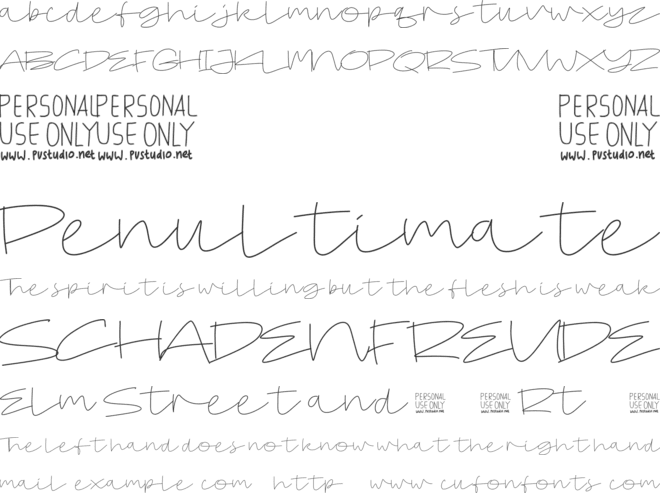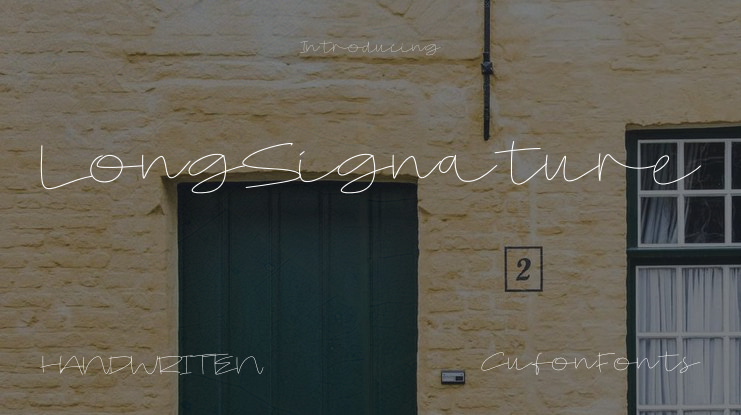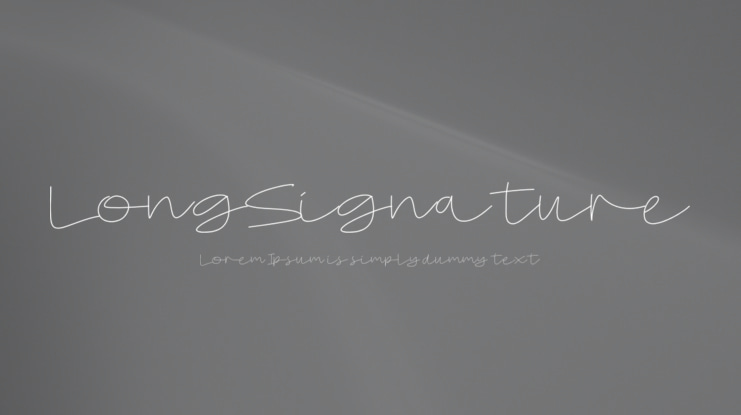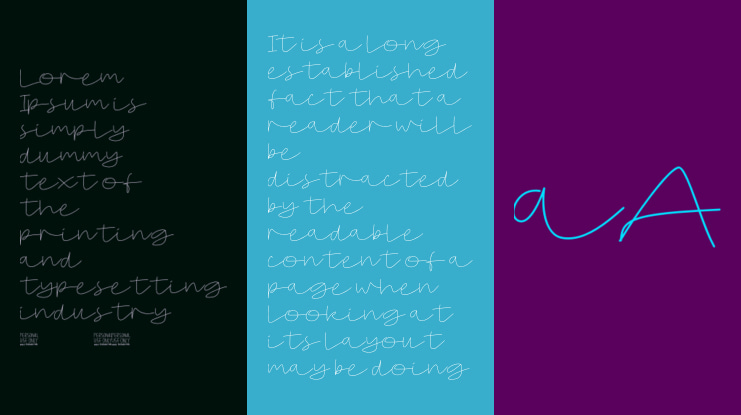
LongSignature Font
This font flows elegantly, mimicking the smooth strokes of classic handwritten ink, and provides a refined and timeless impression.